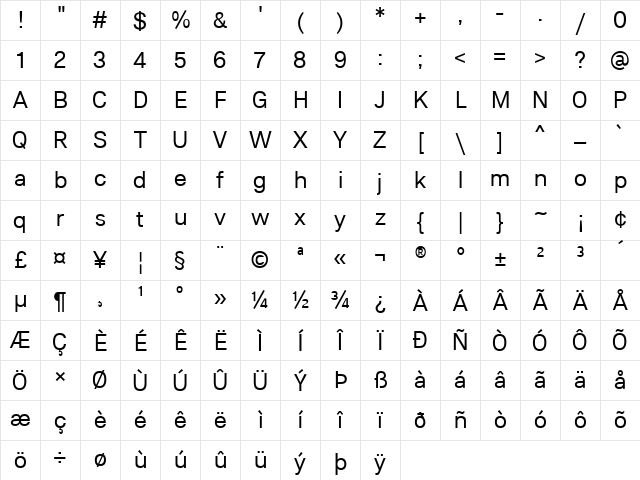
Lunchtype21 Regular
Foundry: Steppot
Designer: Steppot
Design Context for Lunchtype21
Lunchtype21 is a composed and adaptable typeface that performs quietly and consistently across a wide range of design contexts.
Pro Tip: Use Lunchtype21 in both headline and body roles to test its range before committing to a single application.